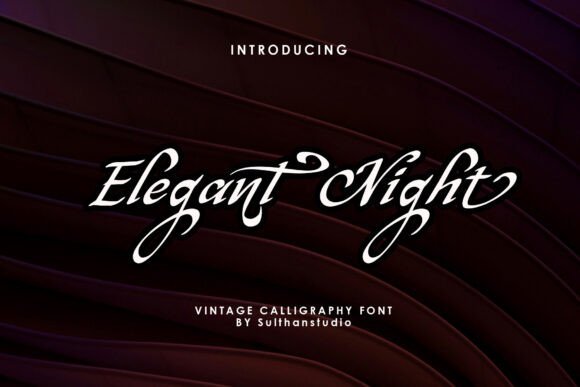
Unlock the Magic of Elegant Night Font
Have you ever stared at a blank canvas, waiting for inspiration to strike? The hours tick by, but nothing seems to spark your creativity. That’s when it hits you – the perfect font can transport your design from ordinary to extraordinary. For many designers, the Elegant Night Font is that elusive missing piece that brings their vision to life.
This vintage calligraphy font is a masterclass in elegance and sophistication. Its unique, hand-crafted style makes it an excellent choice for a wide range of designs, from wedding invitations to book covers. With the Elegant Night Font, the possibilities are endless, limited only by your imagination.
As a valuable addition to any designer’s toolkit, the Elegant Night Font offers a level of versatility and sophistication that’s hard to find elsewhere. Whether you’re working on a high-end project or a personal passion project, this font is sure to elevate your design to new heights.
Elegant Night Font Key Features
- Unique Characteristics: Elegant Night Font features a sophisticated and elegant design, with intricate details and subtle flourishes, making it perfect for formal and luxury branding.
- Font Style: Elegant Night Font comes in multiple styles, including Regular, Italic, Bold, and Bold Italic, allowing designers to create a range of visual effects and moods.
Elegant Night Font Review
Overall, I think Elegant Night Font is a great option for designers looking to create a sophisticated and elegant look for their projects. ✨
Here are some things that I think work particularly well:
- ✨ Elegant and refined design that is perfect for high-end branding and design projects.
- ✨ Highly legible and easy to read, even at small font sizes.
- ✨ Suitable for a wide range of applications, from print to digital.
However, I do have a few reservations:
- ⚠️ Limited character set support, which may make it difficult to use for languages that require a lot of special characters.
- ⚠️ May not be the best choice for projects that require a lot of bold or italic text, as the font’s design may not hold up well to these styles.
Overall, I think Elegant Night Font is a solid choice for designers who want to create a sophisticated and elegant look for their projects. While it may have some limitations, its refined design and high legibility make it a great option for a wide range of applications.
Tips for Getting the Most Out of Elegant Night Font
To get the most out of Elegant Night Font, try using it in combination with other elegant fonts, and adjust the font size and color to create a sophisticated look.
Elegant Night Font is ideal for creating elegant invitations, wedding stationery, and other formal documents. It can also be used for creating a sophisticated logo or branding materials.
Q: Is the Elegant Night Font optimized for digital use?
Yes, the Elegant Night Font is carefully crafted for optimal performance in digital environments. The font is designed to be clear and readable on various screen resolutions and devices, ensuring a consistent and high-quality experience for your users.